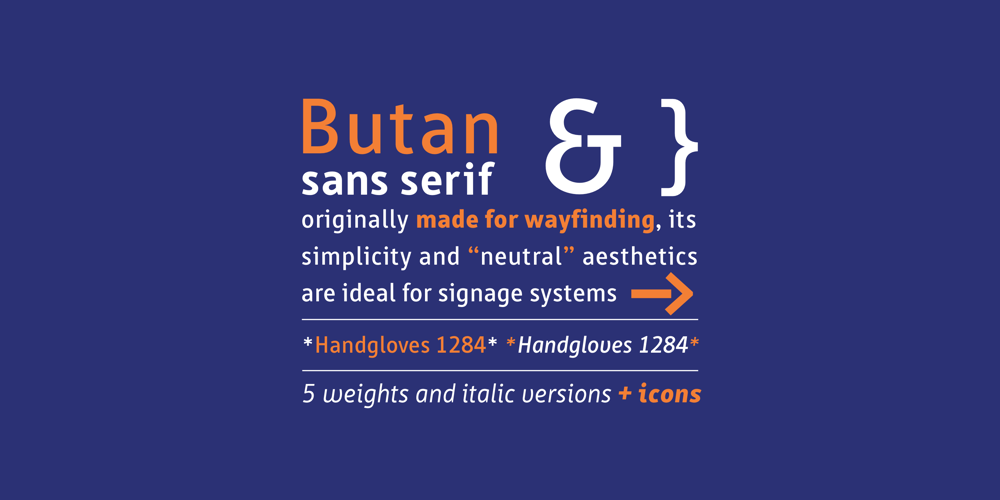
Butan Font Family was designed by Mailen Lanouguere and published by Butan. Butan contains 10 styles and family package options. Butan was originally designed as a typographic project for the Specialization in Typography Design at the University of Buenos Aires, during the years 2013 and 2014. The project was conceived as a “wayfinding” font, that would be functional for bilingual signage systems. The main guideline for its design was to create a font that could be readable from great distances and it could be potentially used in signage systems. Therefore the neutral aesthetics and clean shapes were very relevant in order to create this particular font.